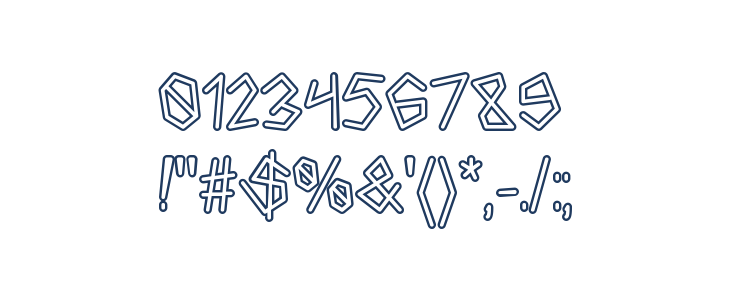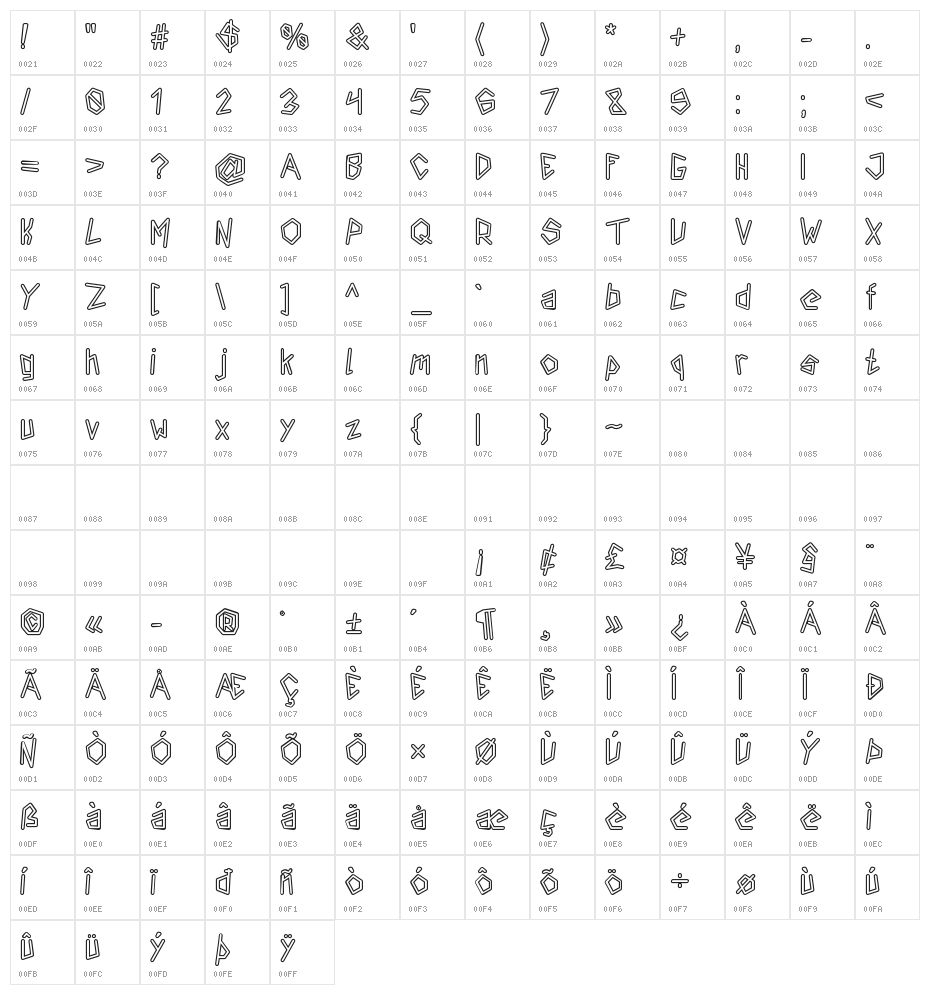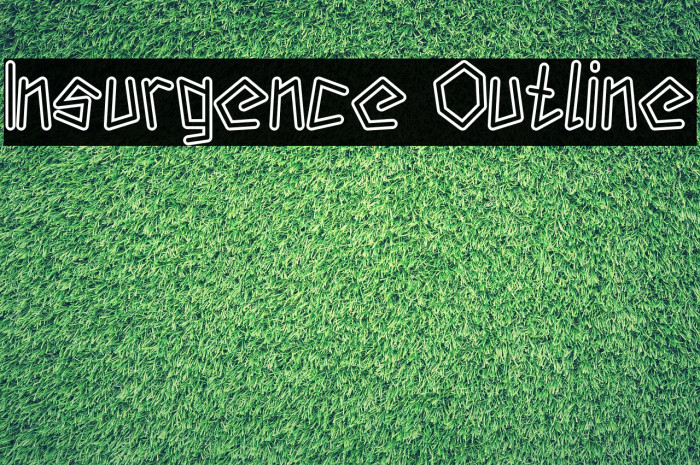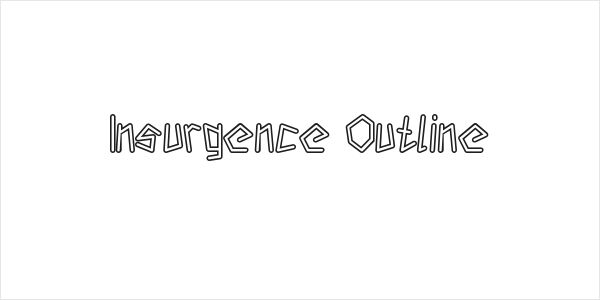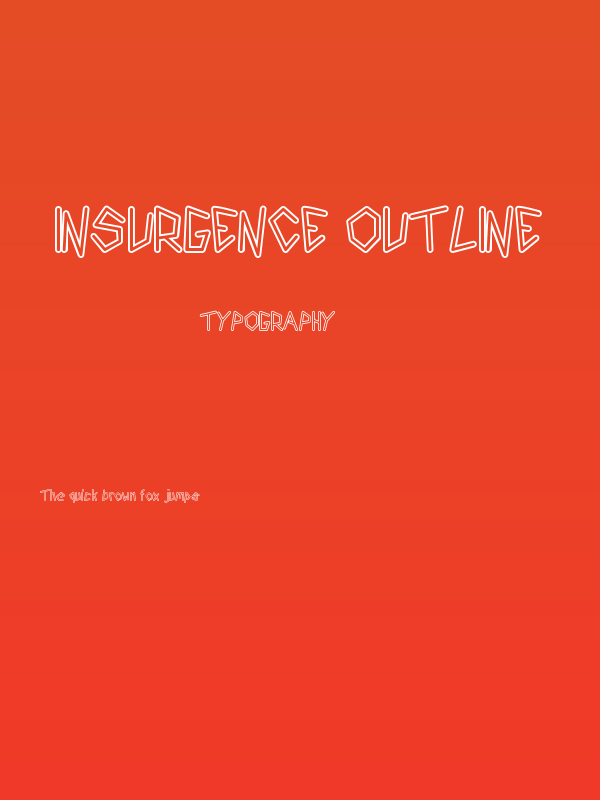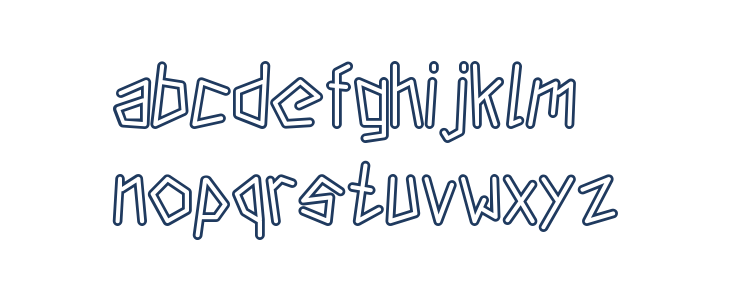
Insurgence Outline Font
Insurgence Outline Description
This font features an outline style with a bold, geometric design. Each character is constructed with thick lines that create a hollow effect, giving the font a three-dimensional appearance. The angular and edgy shapes of the letters convey a sense of modernity and rebellion. The uppercase and lowercase letters maintain a consistent style, with sharp angles and clean lines. Numbers and special characters follow the same design principles, ensuring uniformity across the font. The overall look is striking and attention-grabbing, making it suitable for projects that require a bold statement.
| Proposed Projects | Ideal for posters, album covers, branding, and any project needing a bold, modern look. |